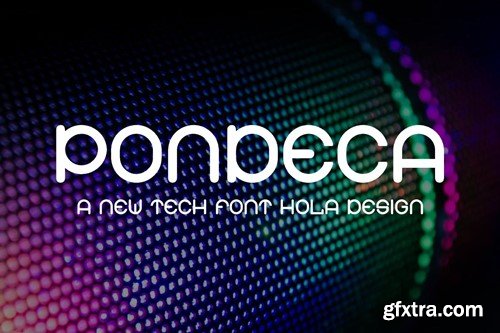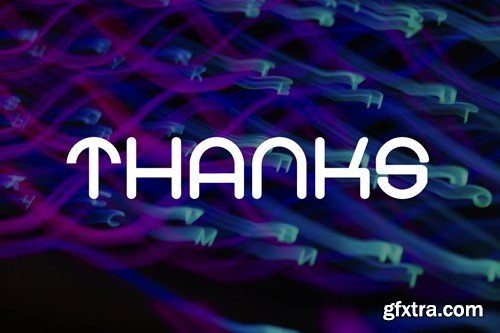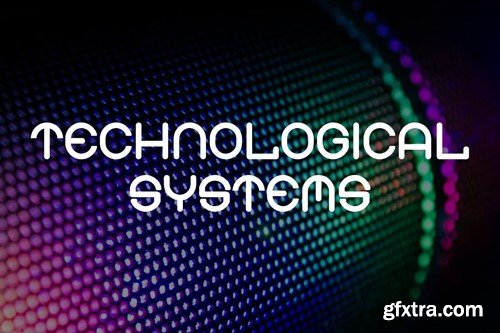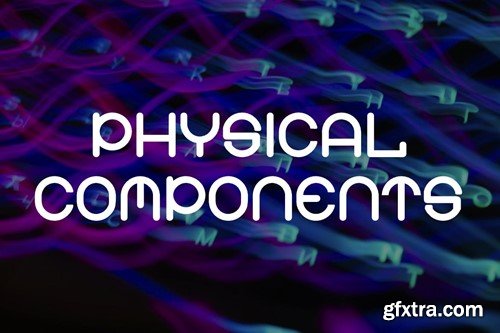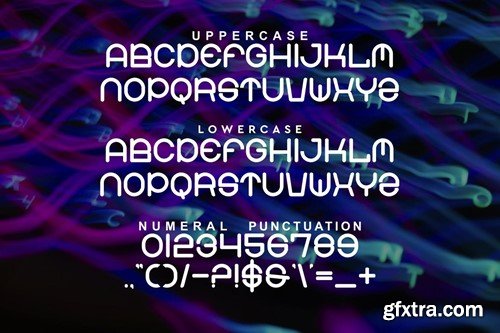
Pondeca - 技术与科幻字体 XY2H5R7
Pondeca - Tech & Sci fi Font XY2H5R7
Pondeca - Tech & Sci fi Font
Black Desgron Font is unique . Ready to use for your design like technology,app,software,labeling, movie sceen, poster, movie title, gigs, album covers, logos, and much more.